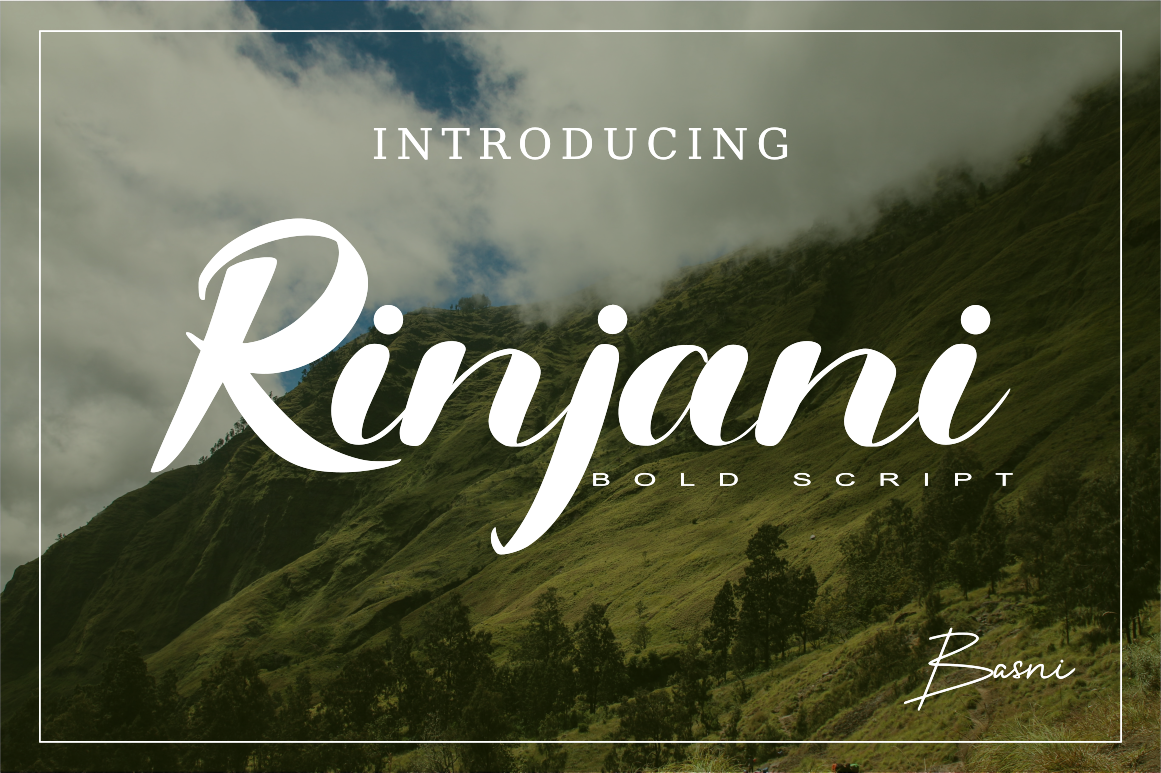
Rinjani a Bold Sript font
Rinjani is handwritten font. Rinjani is perfect for branding, logo, watermark, business card, clothing, magazine, web, and any other design projects. Rinjani looks strong & naturally.